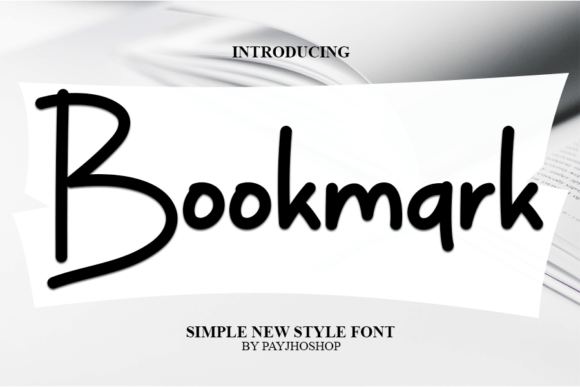
Introducing Bookmark Font: The Ultimate Handwritten Font for Modern Designers and Crafters
In the world of typography, a good font can make all the difference in the success of a design project. Whether you’re a professional designer, a crafter, or simply someone who loves to create digital content, having the right font can elevate your work from ordinary to extraordinary. That’s where Bookmark Font comes in – a cool and modern handwritten font that’s perfect for a wide range of applications.
What is Bookmark Font?
Bookmark Font is a beautifully crafted handwritten font that’s designed to add a personal touch to your designs. With its unique and elegant lettering style, this font is sure to capture the attention of your audience. Whether you’re creating crafts, digital designs, presentations, or greeting cards, Bookmark Font has the potential to become your go-to font for any occasion.
Key Features of Bookmark Font
- Handwritten style: Bookmark Font features a beautiful handwritten style that’s perfect for creating personal and unique designs.
- Modern and cool: This font has a modern and cool vibe that’s sure to appeal to designers and crafters who want to create trendy and stylish designs.
- Versatile: Bookmark Font is versatile and can be used for a wide range of applications, including crafts, digital design, presentations, and greeting cards.
- Elegant lettering style: The font features an elegant lettering style that’s perfect for creating sophisticated and eye-catching designs.
Uses of Bookmark Font
Bookmark Font is a versatile font that can be used for a wide range of applications. Here are some of the ways you can use this font:
- Crafts: Use Bookmark Font to add a personal touch to your craft projects, such as scrapbooking, card making, and journaling.
- Digital design: This font is perfect for digital designers who want to create unique and eye-catching designs for social media, blogs, and websites.
- Presentations: Add a touch of elegance to your presentations with Bookmark Font, perfect for business presentations, educational materials, and more.
- Greeting cards: Use Bookmark Font to create beautiful and personalized greeting cards for special occasions, such as birthdays, weddings, and holidays.
Why Choose Bookmark Font?
With so many fonts available, why choose Bookmark Font? Here are some reasons why this font stands out:
- Unique style: Bookmark Font has a unique and elegant handwritten style that’s sure to set your designs apart.
- Easy to read: The font is easy to read, making it perfect for body text and headings.
- High-quality: Bookmark Font is a high-quality font that’s designed to produce crisp and clear results, even at small sizes.
Tips for Using Bookmark Font
Here are some tips for using Bookmark Font effectively:
- Use it sparingly: Use Bookmark Font sparingly to add emphasis to your designs. You can use it for headings, titles, or quotes to add visual interest.
- Pair it with other fonts: Bookmark Font pairs well with other fonts, such as sans-serif fonts or serif fonts. Experiment with different font combinations to find the perfect look for your design.
- Adjust the size and color: Adjust the size and color of Bookmark Font to suit your design needs. You can use a large size for headings or a smaller size for body text.
In conclusion, Bookmark Font is a cool and modern handwritten font that’s perfect for designers and crafters who want to add a personal touch to their designs. With its unique and elegant lettering style, this font is sure to become your go-to font for any occasion. Whether you’re creating crafts, digital designs, presentations, or greeting cards, Bookmark Font has the potential to elevate your work from ordinary to extraordinary.